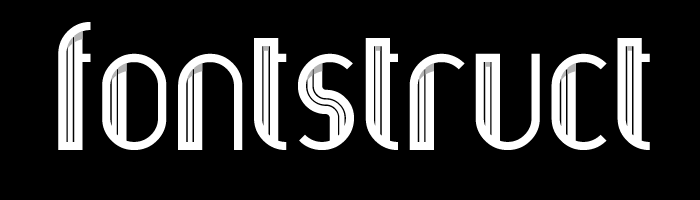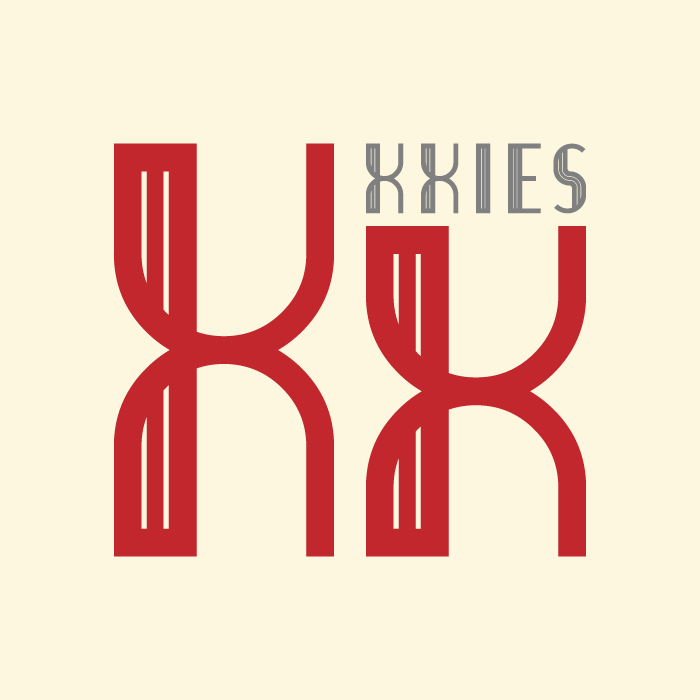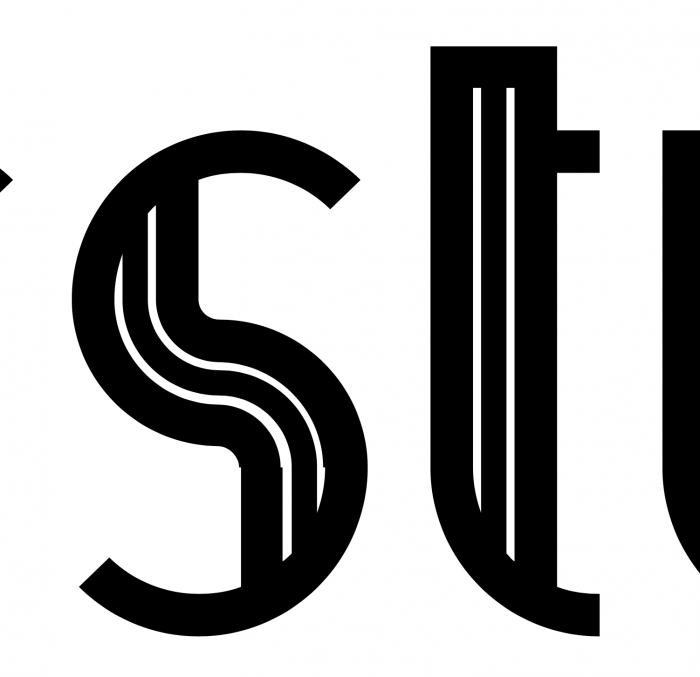
The downloaded font looks good only in ttf format (the bigger em value the better), but all of the otf files don't look so good (line break etc.)
Another archi-beauty. I love the inner curvy lines. Great first demo pict too. Good luck with it. The comp is getting animated...
Yes, these three-lined curves in s, z, 5, 2 and similar glyphs look really good!
Another thing I and maybe others noticed some years ago but really never got into mentioning it because I personally never used it. But this font would look a little differently if we had some extra bricks. I like it when both core and connected bricks can be used together creating another possibilites. For example in my example below, the double line connects beautifully with thinner arc bricks, but the triple line doesn't have a matching width arc, the one we have now has a different width (which is also very useful but not for this case). Do you think you can add arc bricks that would connect with triple lines perfectly?
@architaraz I’ve taken note of the two issues you mention.
Although on first glance I can’t see the issue with the .otf – can you show me the problem (e.g. screenshot)? Thanks!
I tried all options like with and without fixed points or changing em value but there's always an issue. Of course I understand that there might be issues with complex shapes, but this one isn't complex. And my thinking is if the top part of the "s" looks ok then the bottom should look ok too? Because it's symmetrical? Unless I'm missing something.
@architaraz:I love your font. But I think the design principle could be stricter for 5 and 2. You can also slightly reduce the a and r to make a text without holes. And I hope you don't mind if I suggest a couple of new bricks under your typeface.
@meek: I am sure that these bricks are sorely lacking, they are especially important for х, ф and ж. I didn't make one brick which is without lines.
@Dmitriy I agree with the brick idea! I can't make those bricks, even with compostes and stacking…
@ meek @Dmitriy @BWM Those bricks can be made with stacking, but I agree that it's best that they're available by default.
@KD I meant the Triline bricks that Dmitriy mentioned, but the mono and biline ones should be default bricks too…
Yes, those bricks are what I meant, it can be created with at least stacking method. Here's a screenshot of something that I am working on right now, the triple cross is the 10th brick ;) I understand that it's not that easy to create, so adding it to the default set would be the best option.
Congratulations! FontStruct Staff have deemed your FontStruction worthy of special mention. “KD Xxies” is now a Top Pick.